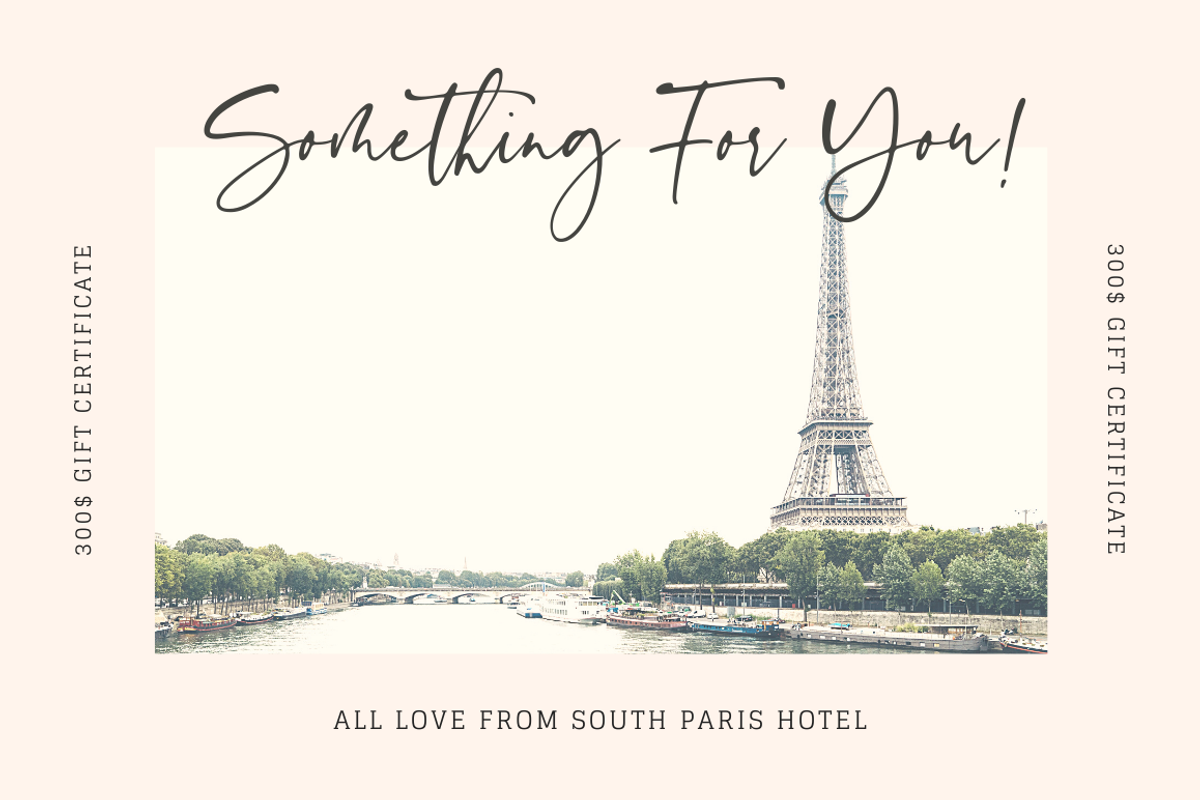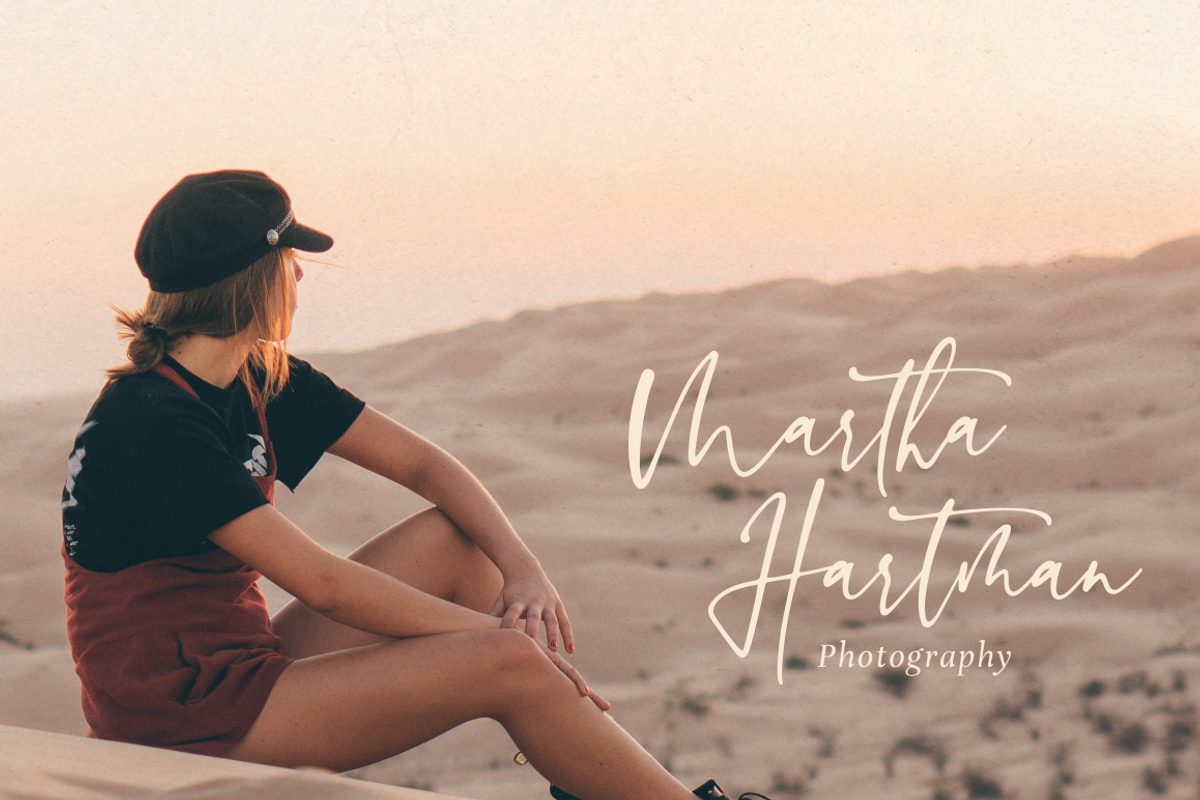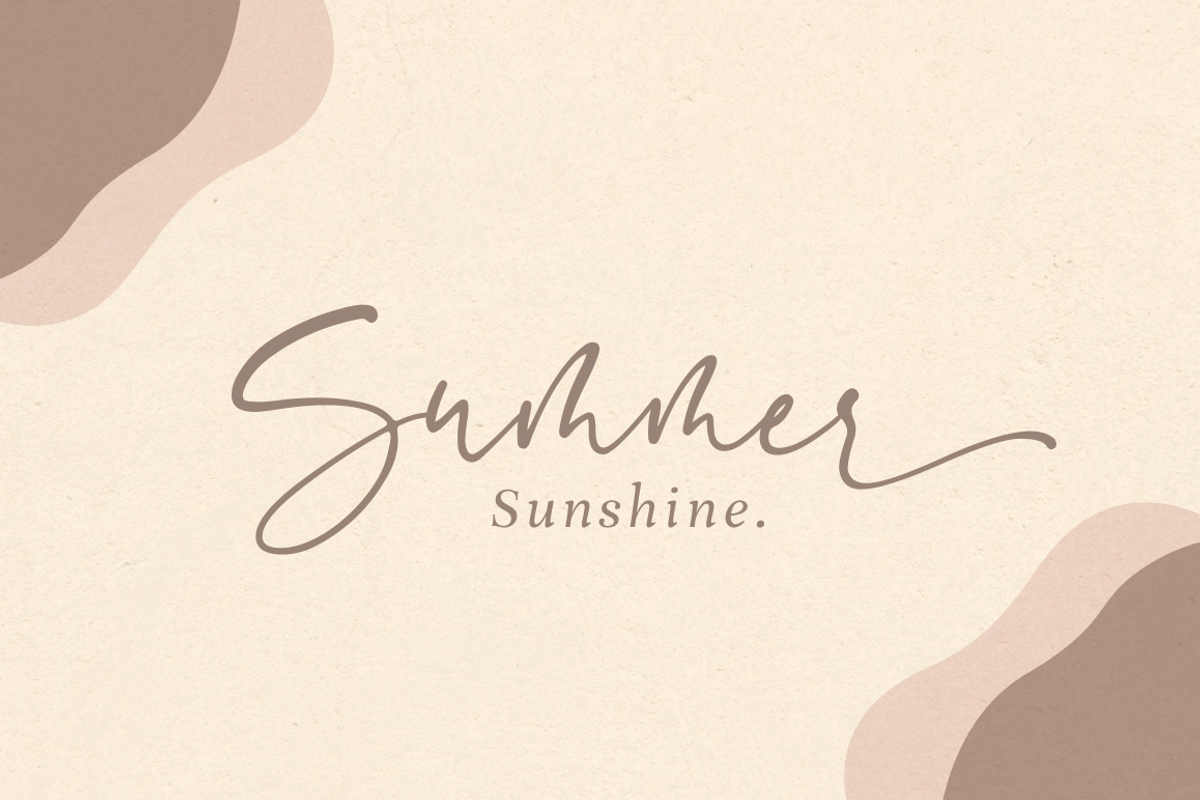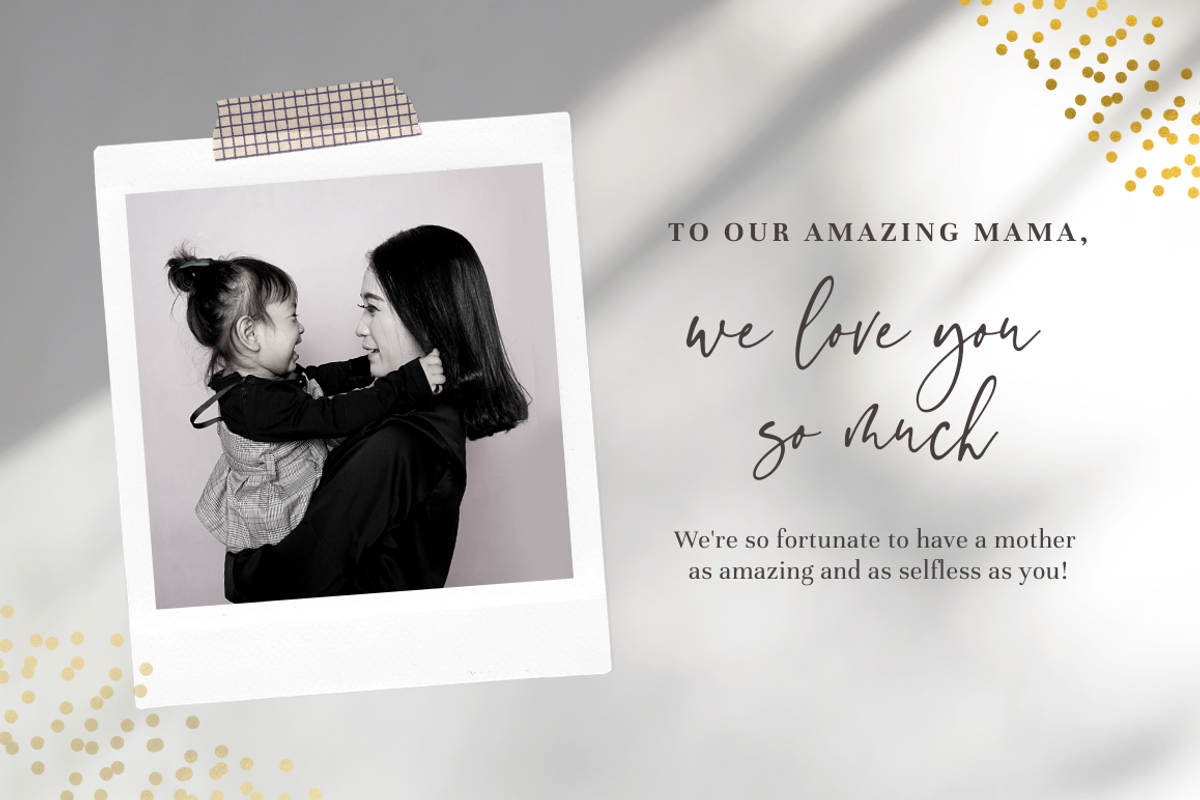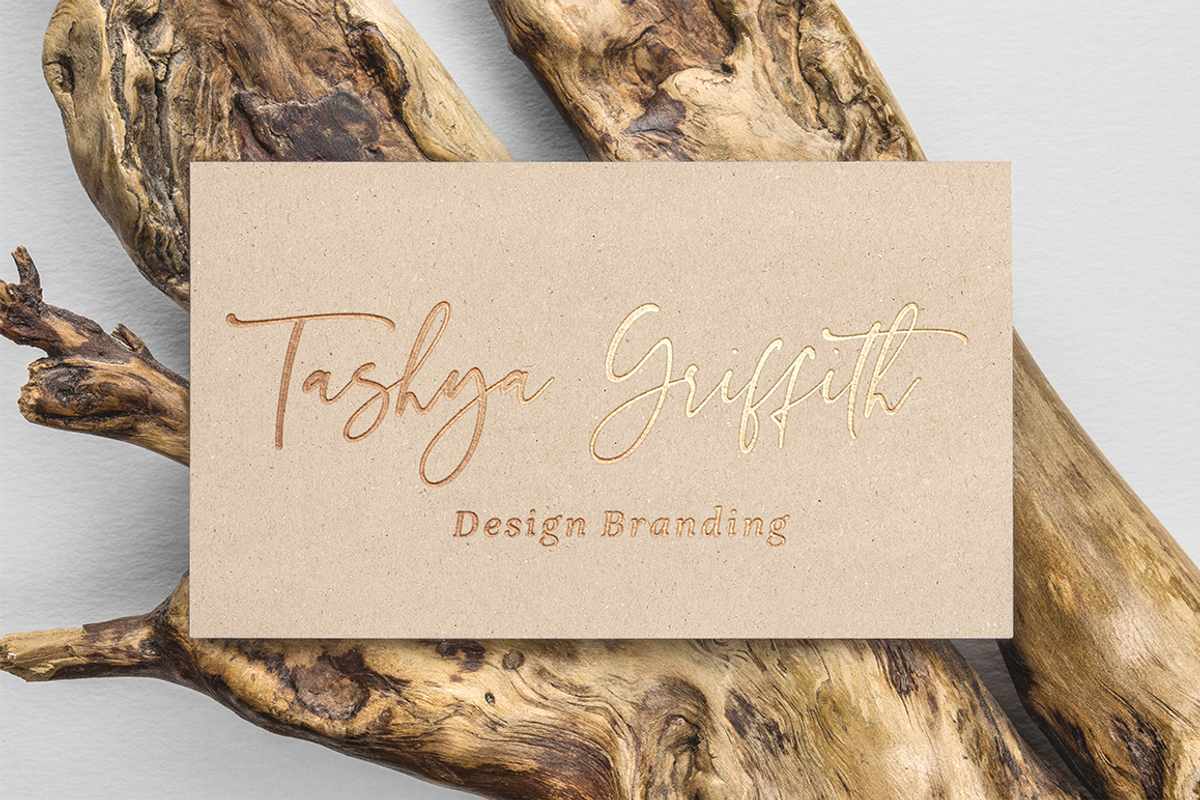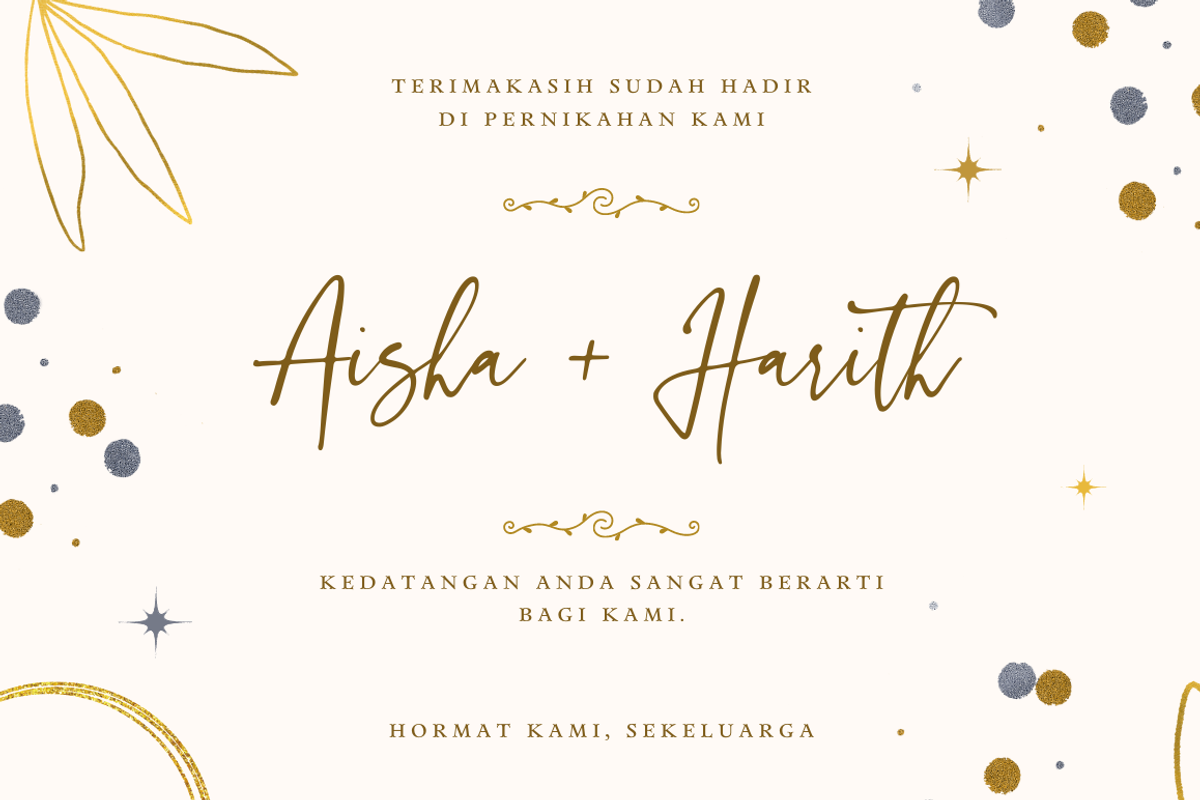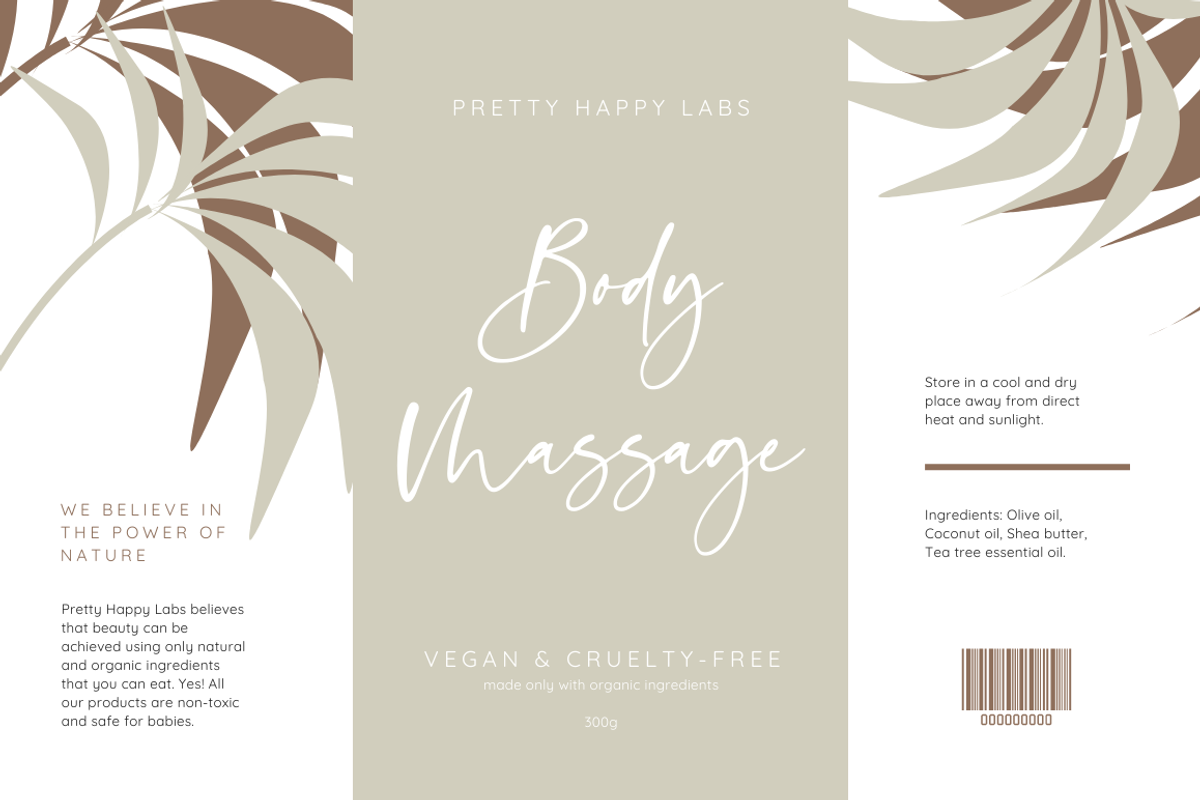
Sinthya - Casual Script Font
Introducing Sinthya - Casual Script Font
Sinthya is a natural handwritten font, this font Is perfect for logo, invitation, stationery, wedding designs, social media posts, advertisements, product packaging, product designs, label, photography, watermark, special events or anything.
Sinthya comes with full set of uppercase and lowercase letters, lowercase beginning & ending swashes , multilingual symbols, numerals, punctuation.
Sinthya - Casual Script Font by Sronstudio fits naturally into Branding, posters, packaging, typography.